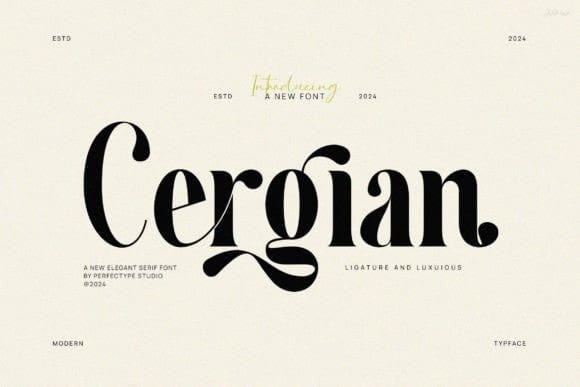
Cergian Font
Cergian Font is a modern, stylish, and elegant serif font that blends sophistication with contemporary flair. With clean lines, balanced proportions, and subtle details, this typeface adds a touch of refinement to any design project, from editorial layouts and branding to luxury packaging and invitations.